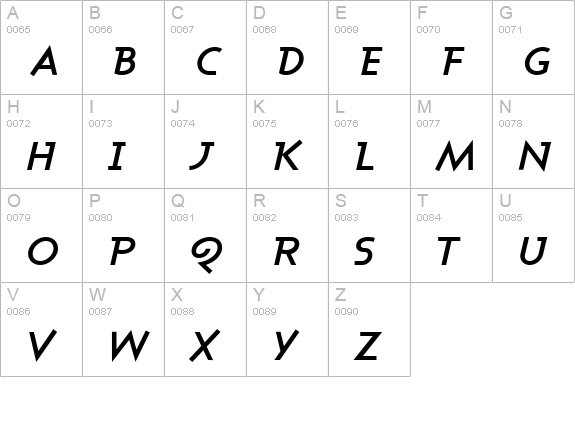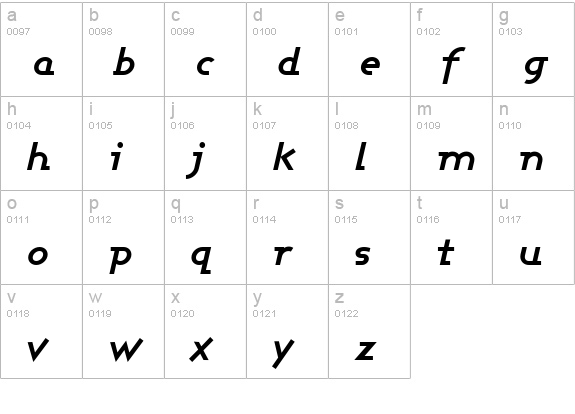
Ashby Bold Italic is a strong, high-contrast, italic variant in the Ashby typeface family \xE2\x80\x94 well suited to headlines, attention-grabbing titles, and strong calls-to-action.
Ashby Bold Italic font is a stylish and elegant typeface that exudes confidence and sophistication. Its bold and slanted design makes it perfect for creating eye-catching headlines, titles, and branding materials. The dynamic curves and sharp lines of this font strike the perfect balance between modernity and classic elegance. What sets Ashby Bold Italic font apart is not only its striking appearance but also its versatility. Whether you're designing a poster, a logo, a website, or any other project that requires a touch of sophistication, this font will elevate your design to the next level. The best part? Ashby Bold Italic font is available for free download at FontsMarket.com. So, you can add this stunning typeface to your collection without breaking the bank. Don't miss out on the opportunity to enhance your designs with the timeless elegance of Ashby Bold Italic font. Download it today and let your creativity soar!